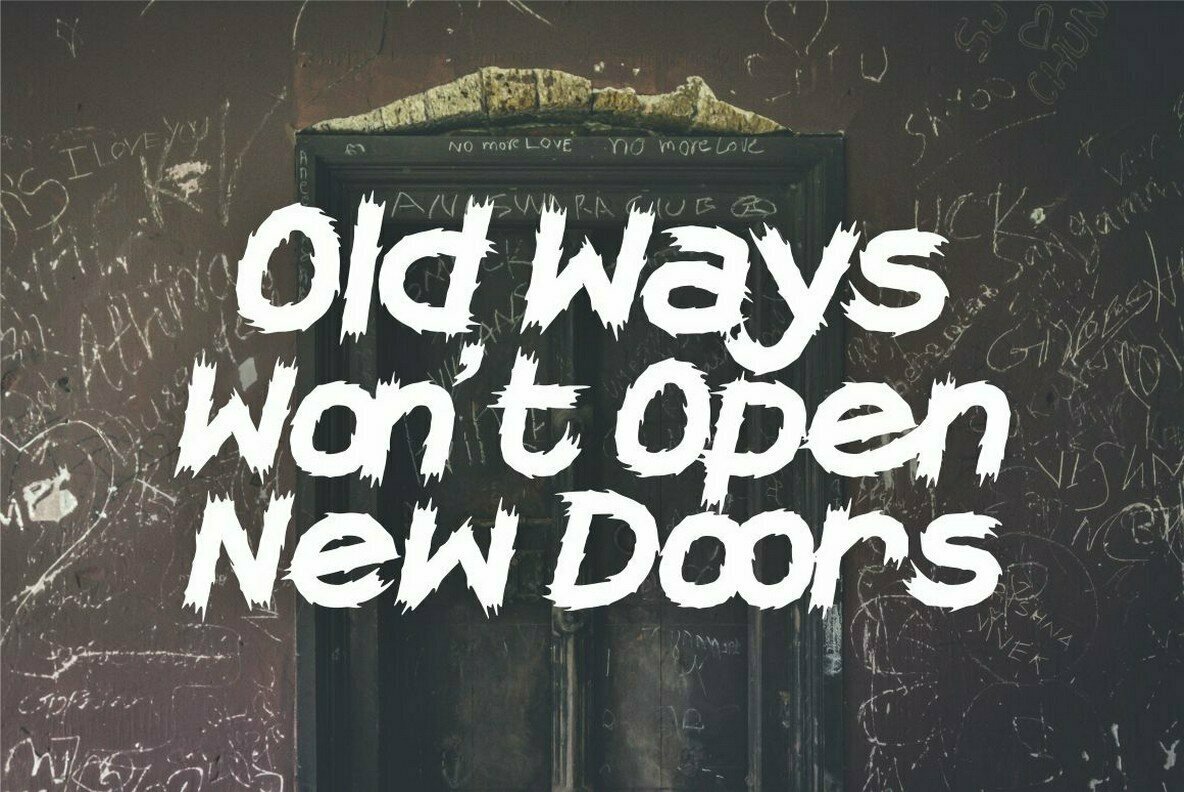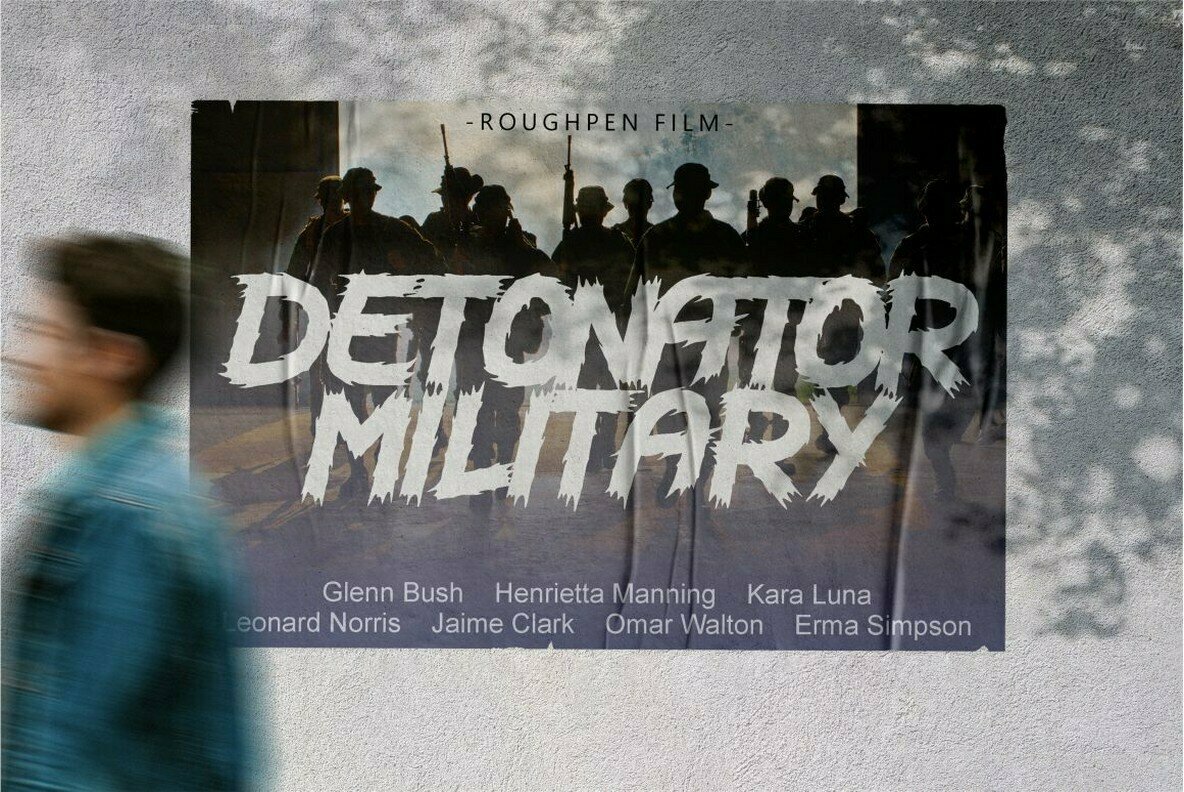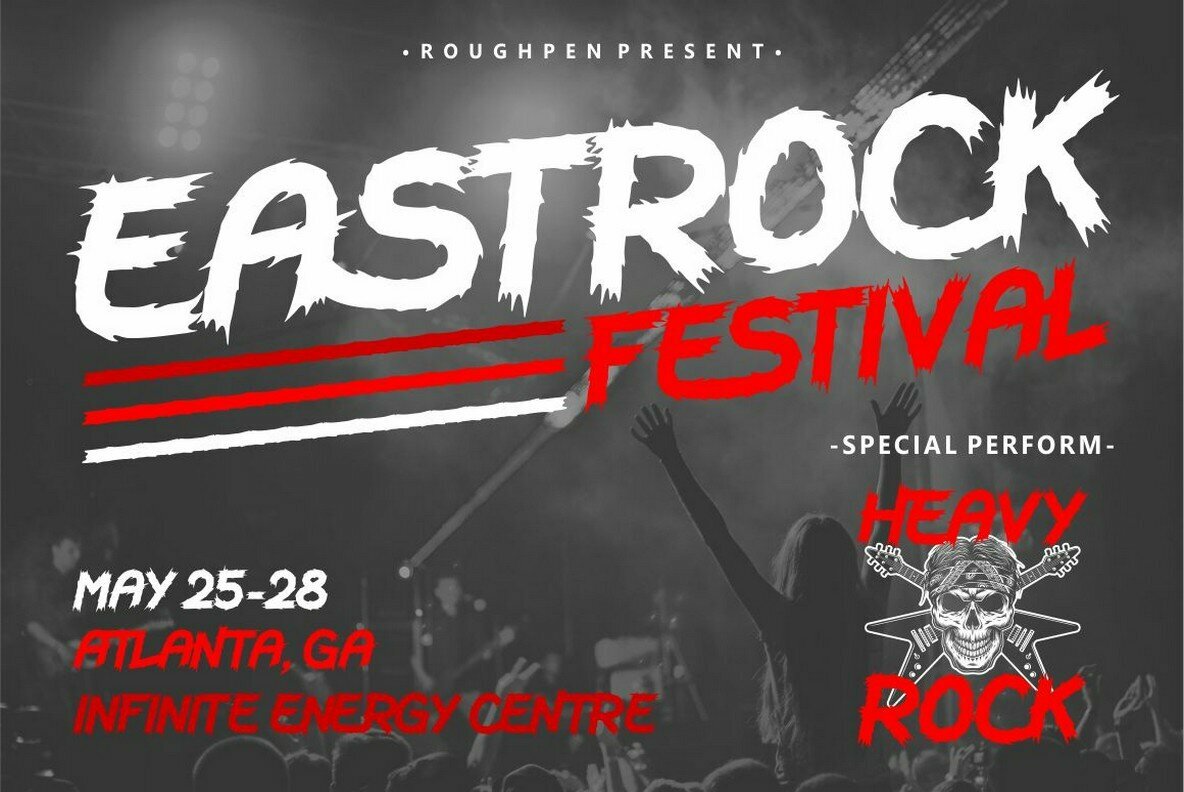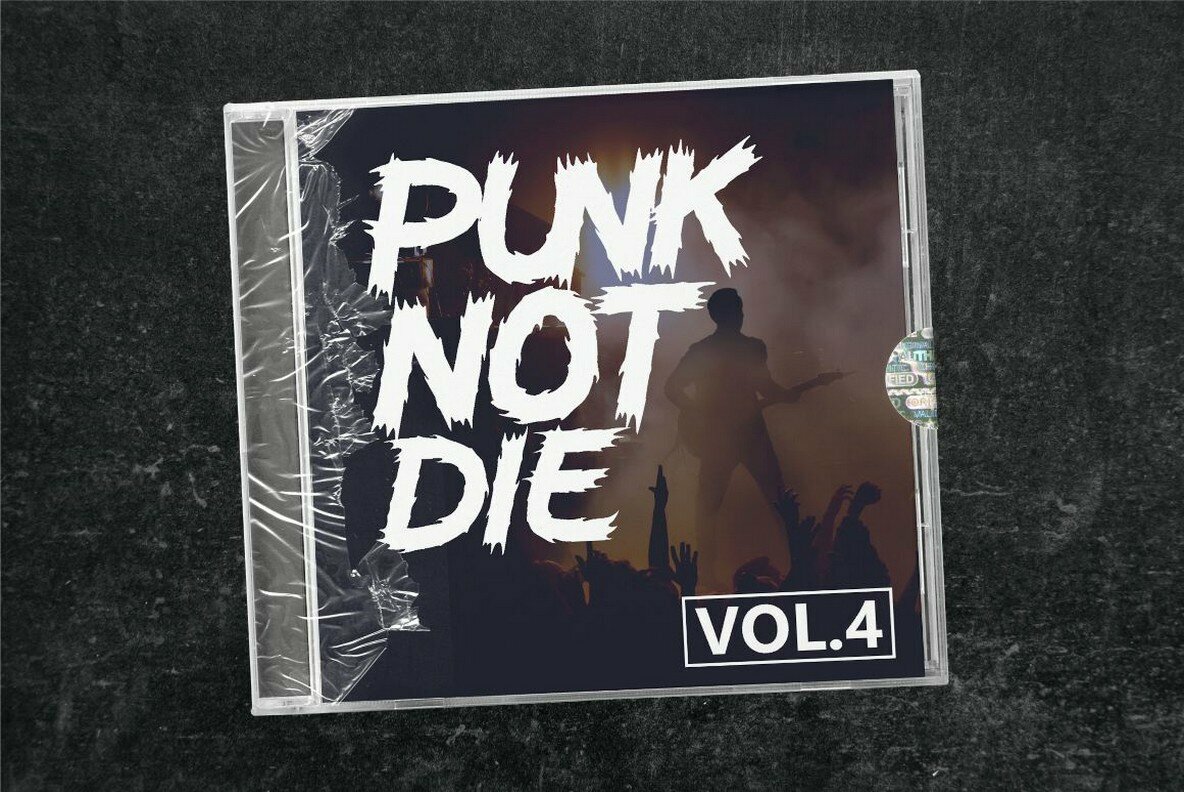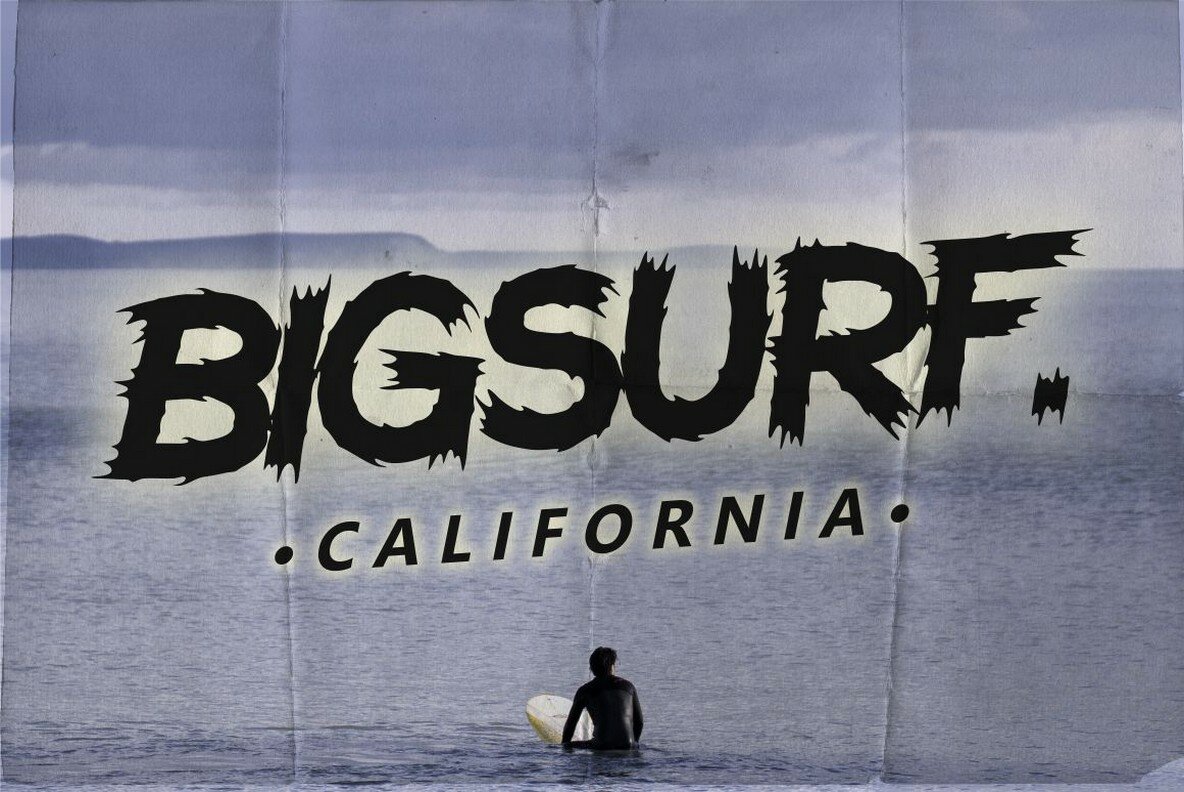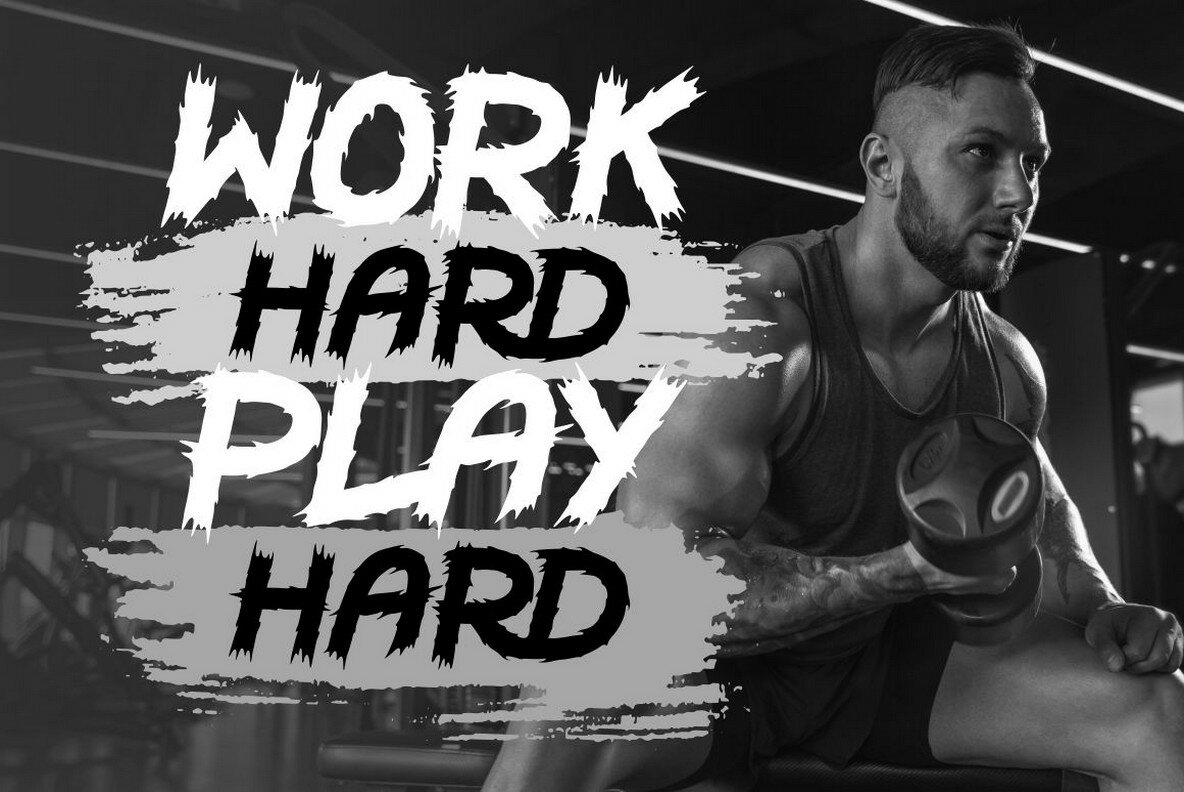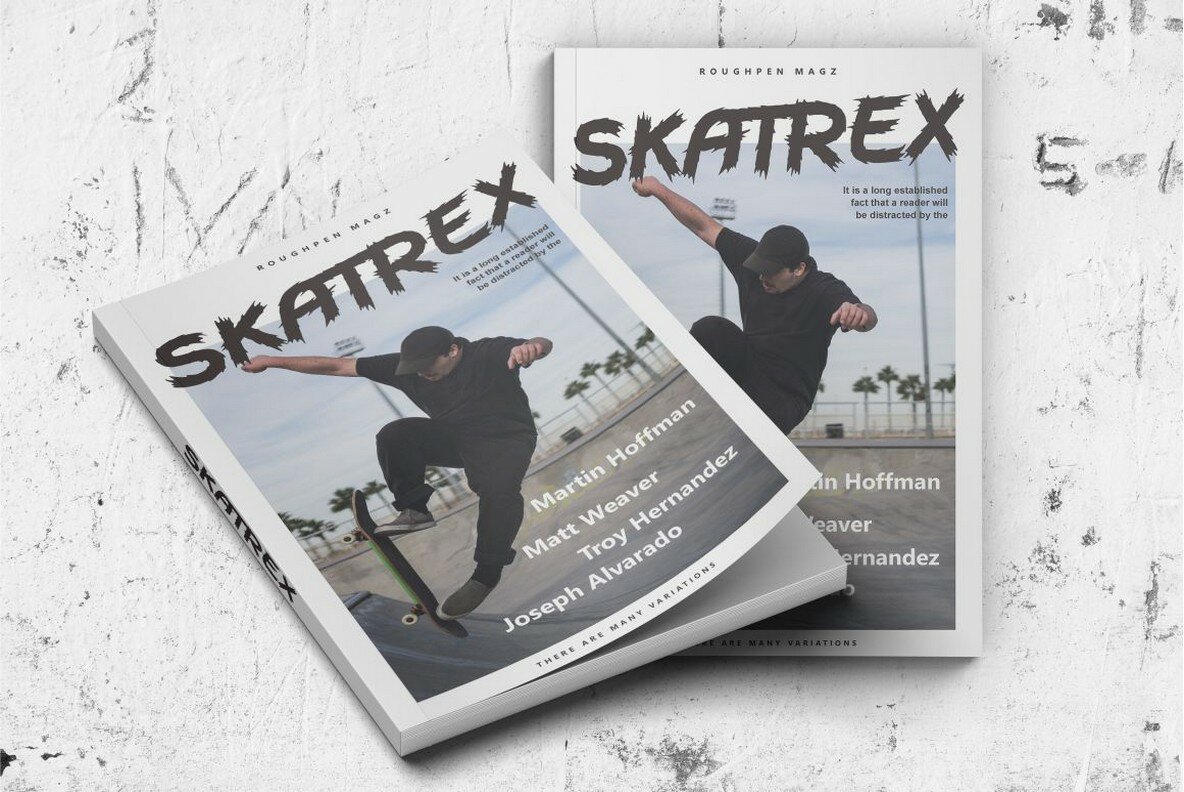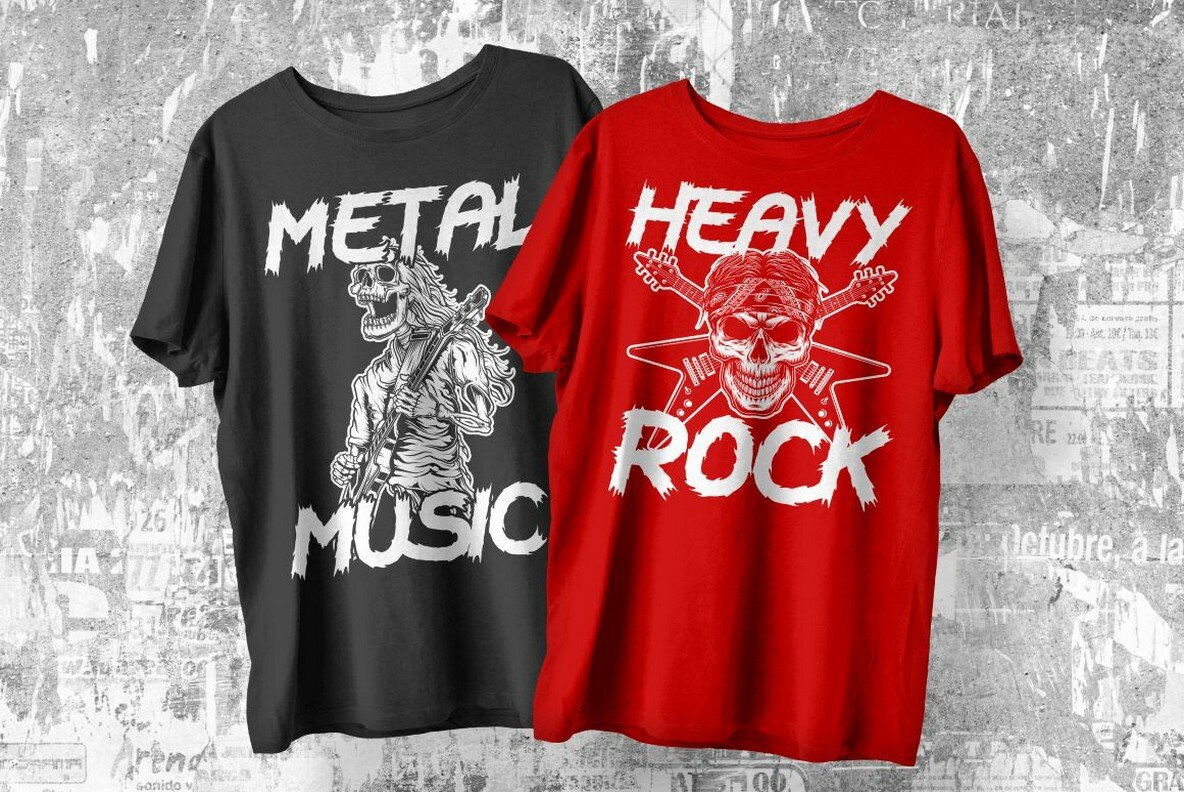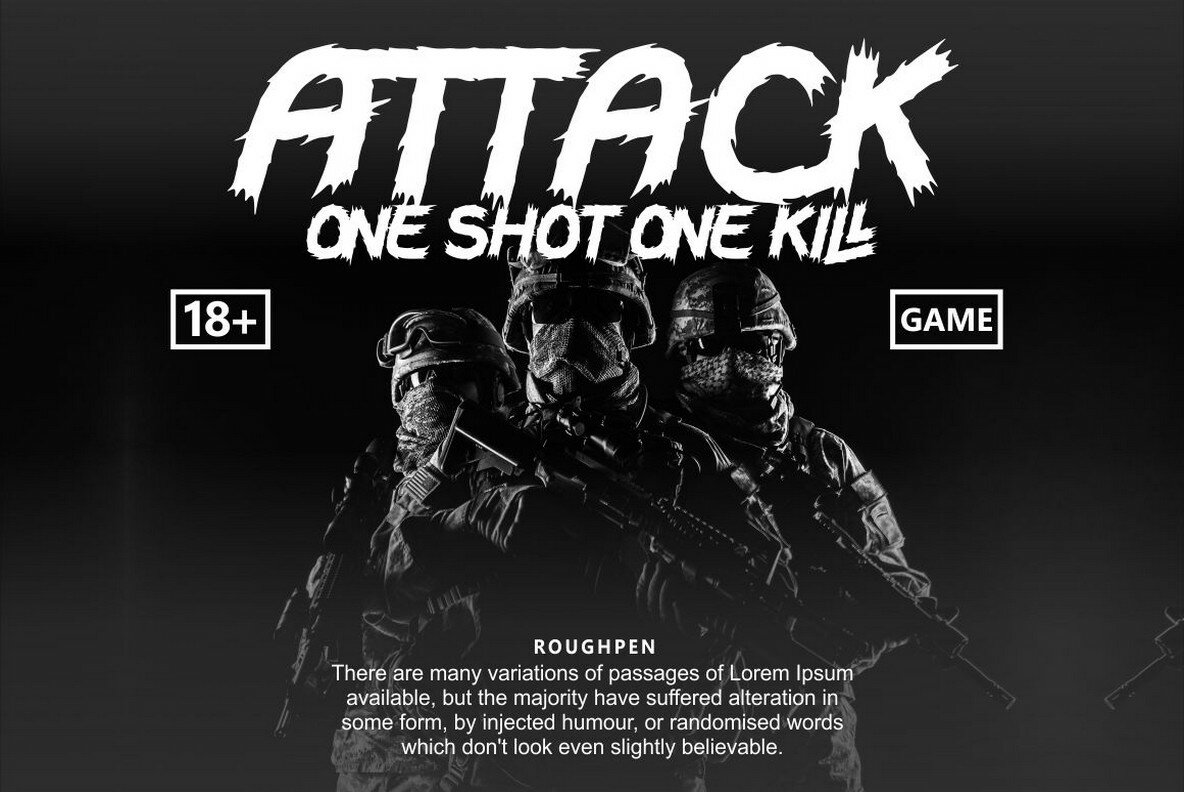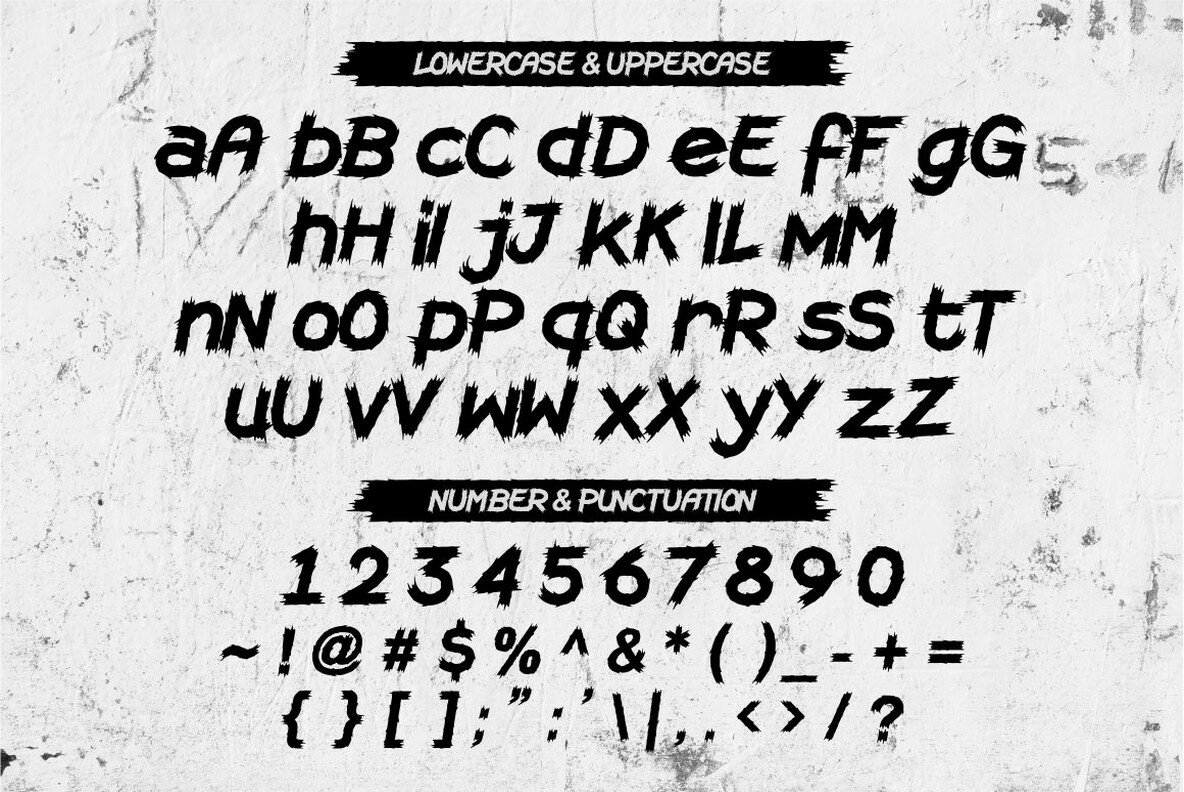
Roughpen Font
Roughpen
The Roughpen typeface captures the art of hand-drawn brush strokes, delivering a bold look perfect for a variety of creative projects. This hand-drawn font is ideal for creating unique logos, eye-catching headers, and captivating titles. It brings a dynamic touch to prints, apparel design, logotypes, and packaging, setting your work apart with its distinctive aesthetic. Roughpen includes an array of binding characters that enhance the versatility of this font, allowing for seamless integration into diverse design processes. Additionally, its multilingual support ensures wide accessibility, catering to a global audience.Roughpen: Bold Brush Typeface for Creative Designs